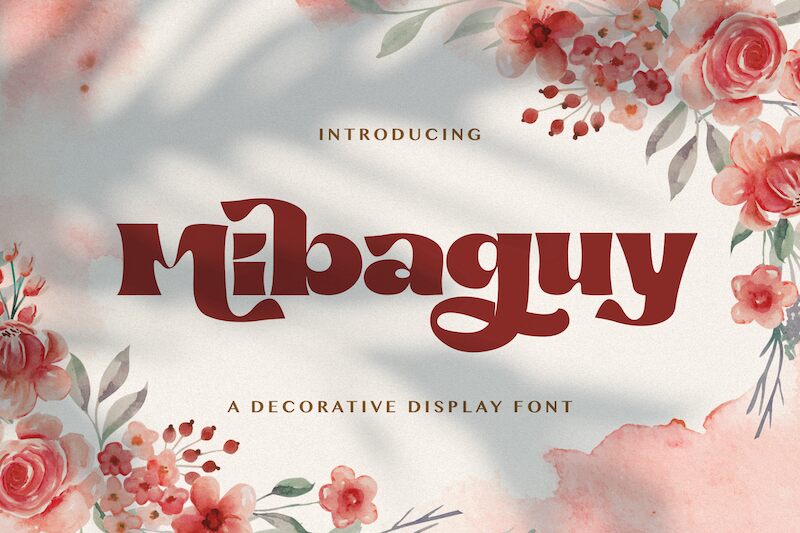
Mibaguy
Mibaguy font is a powerful, retro-looking display font designed by StringLabs Creative Studio. Its broad, striking shapes of letters refer to something old-fashioned and visually strong so as to make it an excellent option for eye-catching headlines, logos, and display texts.
Mibaguy’s bold expressive manner is suitable for various graphic design applications including retro-themed branding to present day compelling designs. For designing vintage posters, kinetic typography and memorable logos this free typeface will provide you with an amazing typographic solution that will instantly enhance your design work.